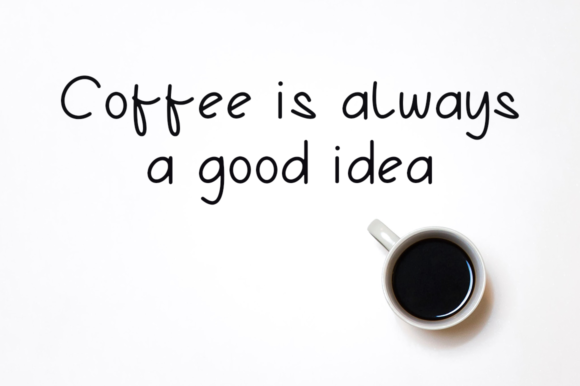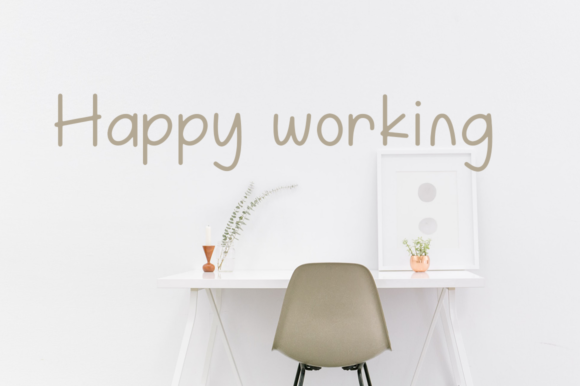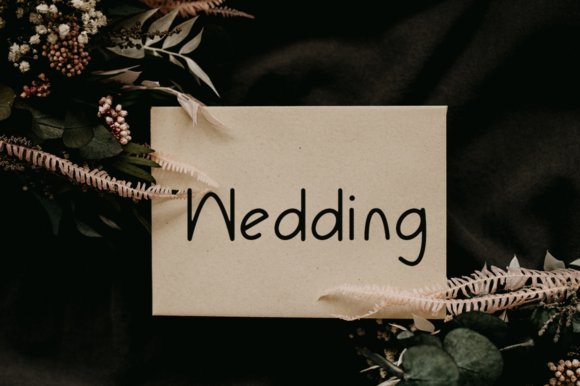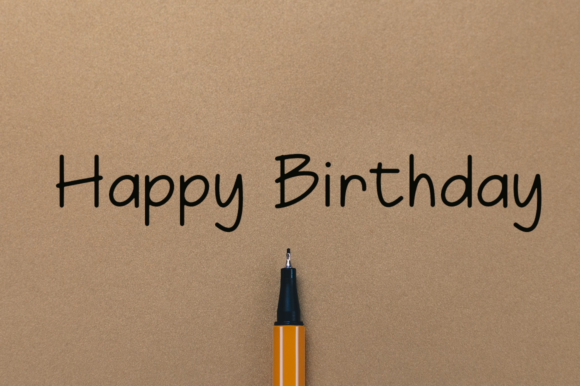
Aulya Westeria Font: Elevate Your Designs with a Touch of Elegance
In the world of typography, a font can make or break a design. Aulya Westeria, a thin and clean handwritten font, has been making waves in the design community for its versatility and aesthetic appeal. In this article, we’ll dive into the features, benefits, and uses of Aulya Westeria, and explore how it can elevate your creative projects.
What is Aulya Westeria?
Aulya Westeria is a modern, handwritten font characterized by its delicate and clean lines. Its thin strokes and elegant curves make it perfect for designs that require a touch of sophistication. Whether you’re working on a branding project, a wedding invitation, or a digital platform, Aulya Westeria can add a dash of elegance and refinement.
Key Features of Aulya Westeria
- Thin and Clean: Aulya Westeria’s sleek design makes it ideal for projects that require a minimalist approach.
- Handwritten: The font’s handwritten nature adds a personal touch, making it perfect for designs that need a human element.
- Versatile: Aulya Westeria can be used in a wide range of projects, from print materials to digital platforms.
- Elegant: The font’s elegant curves and lines add a touch of sophistication to any design.
Benefits of Using Aulya Westeria
So, why choose Aulya Westeria for your design projects? Here are some benefits that make it a popular choice among designers:
- Easy to Read: Aulya Westeria’s clean and thin design makes it easy to read, even at small font sizes.
- Highly Versatile: The font can be used in a variety of projects, from logos and branding to social media graphics and website headers.
- Unique and Creative: Aulya Westeria’s handwritten nature adds a unique touch to designs, setting them apart from more traditional fonts.
- Time-Saving: With Aulya Westeria, you can create professional-looking designs quickly and efficiently, saving you time and effort.
Using Aulya Westeria in Your Designs
So, how can you incorporate Aulya Westeria into your design projects? Here are some ideas to get you started:
- Branding and Logos: Use Aulya Westeria to create elegant and sophisticated logos that reflect your brand’s personality.
- Wedding Invitations: Add a touch of romance and elegance to your wedding invitations with Aulya Westeria.
- Social Media Graphics: Use Aulya Westeria to create eye-catching social media graphics that stand out from the crowd.
- Website Headers: Elevate your website’s design with Aulya Westeria, perfect for headers, titles, and other prominent text elements.
Tips and Tricks for Working with Aulya Westeria
To get the most out of Aulya Westeria, here are some tips and tricks to keep in mind:
- Pair with Bold Fonts: Combine Aulya Westeria with bold fonts for a striking contrast that adds visual interest.
- Experiment with Colors: Try out different colors and textures to add depth and personality to your designs.
- Play with Sizes: Experiment with different font sizes to create visual hierarchy and emphasize important text elements.
Aulya Westeria is a versatile and elegant font that can elevate your design projects to the next level. With its thin and clean lines, handwritten nature, and high versatility, it’s perfect for a wide range of applications. Whether you’re a designer, crafter, or DIY enthusiast, Aulya Westeria is a great addition to your creative toolkit. So why not give it a try and see how it can make your designs stand out?